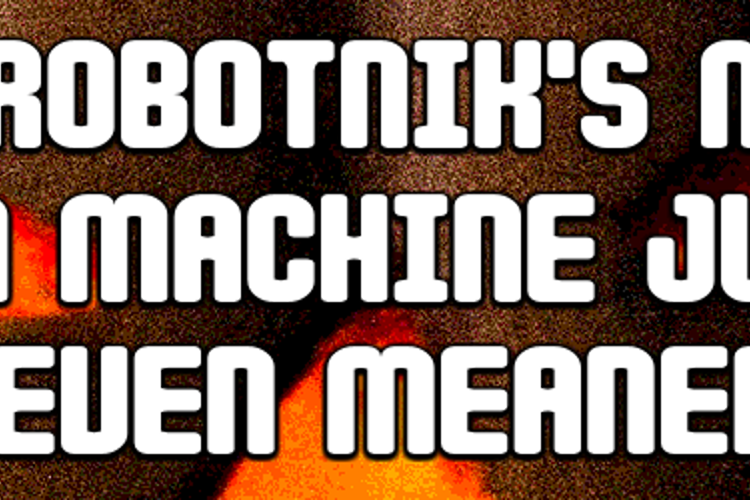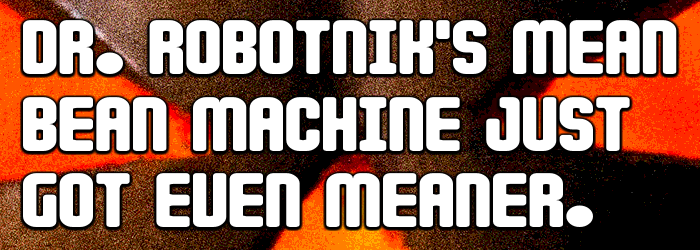
Kitchen Sink Gold Font
by Pixel Kitchen
About Kitchen Sink Gold Font
A variant of Kitchen Sink Rounded with filter sizes altered so that most letters are enclosed within golden rectangles. This is a squatter and friendlier take on the original Kitchen Sink design - good for header text, image captions, etc.